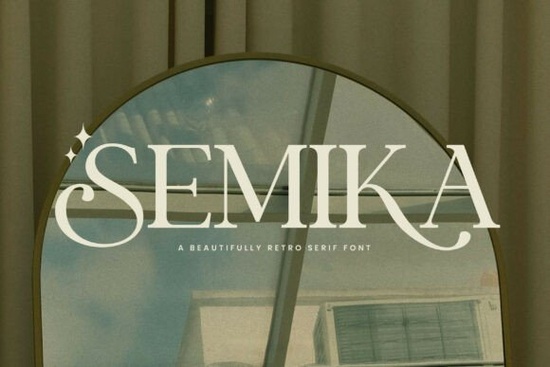
If you're looking for a typeface that carries the warmth of vintage design without feeling outdated, Semika might be exactly what you need. This retro serif font blends soft curves and elegant serifs with a nostalgic personality that works beautifully across logos, wedding invitations, packaging, and more. Whether you're a designer building a brand identity or a crafter working on a personal project, Semika brings a romantic, classic feel without overcomplicating things.
What Makes Semika Different from Other Serif Fonts?
There's no shortage of serif fonts out there, so what sets Semika apart? It comes down to its personality. While many serif fonts lean either too formal or too plain, Semika sits in a sweet spot it's refined but approachable, retro but not outdated. The letterforms have a gentle, rounded quality that gives text a soft, inviting appearance.
Compared to something like a clean typewriter-style serif, Semika feels warmer and more decorative. It's not trying to be stripped down and minimal instead, it embraces its vintage roots with confident, graceful curves.
Who Is Semika Best Suited For?
Semika works well for a wide range of creative projects and skill levels:
- Logo designers who want a typeface with character and warmth
- Wedding stationery creators looking for an elegant, romantic font
- Print-on-demand sellers designing mugs, tote bags, or greeting cards
- Small business owners building packaging that feels premium and personal
- Crafters and hobbyists working on invitations, quotes, or wall art
Its versatility across both digital and print formats makes it a solid addition to any font library.
Where Does Semika Work Best?
Because of its retro serif style, Semika shines in projects where you want to evoke nostalgia or timelessness. Here are some practical uses:
- Logo and branding design for boutique or lifestyle brands
- Wedding invitations, save-the-date cards, and event programs
- Product packaging for candles, skincare, or artisan goods
- Social media graphics with a vintage aesthetic
- Book covers, magazine headers, and editorial layouts
- Print-on-demand designs for apparel and home decor
If you've been pairing a youthful serif option with decorative fonts and want something with more classic depth, Semika fills that gap nicely.
How Does Semika Pair with Other Fonts?
Good font pairing can make or break a design. Semika's retro serif structure works well alongside clean sans-serifs for contrast. Try pairing it with a simple geometric sans-serif for body text this lets Semika stand out in headings without overwhelming the layout.
You could also explore this charming retro serif for display purposes and use a lighter, more neutral typeface for supporting text. Keep the hierarchy clear: one font leads, the other supports.
Pairing ideas to try:
- Semika + a light sans-serif for modern contrast
- Semika + a script font for extra romantic flair on invitations
- Semika alone in all-caps for bold, confident logo work
- ✅ Test at multiple sizes Semika's details look great large, but always check readability at smaller sizes
- ✅ Pair wisely match it with a simple companion font to avoid visual clutter
- ✅ Explore alternates if the font includes stylistic alternates, experiment with them for unique looks
Start by using Semika on one small project a card, a quote graphic, or a simple logo mockup and see how it feels in your workflow. You might find it quickly becomes a go-to for designs that need that warm, vintage touch.